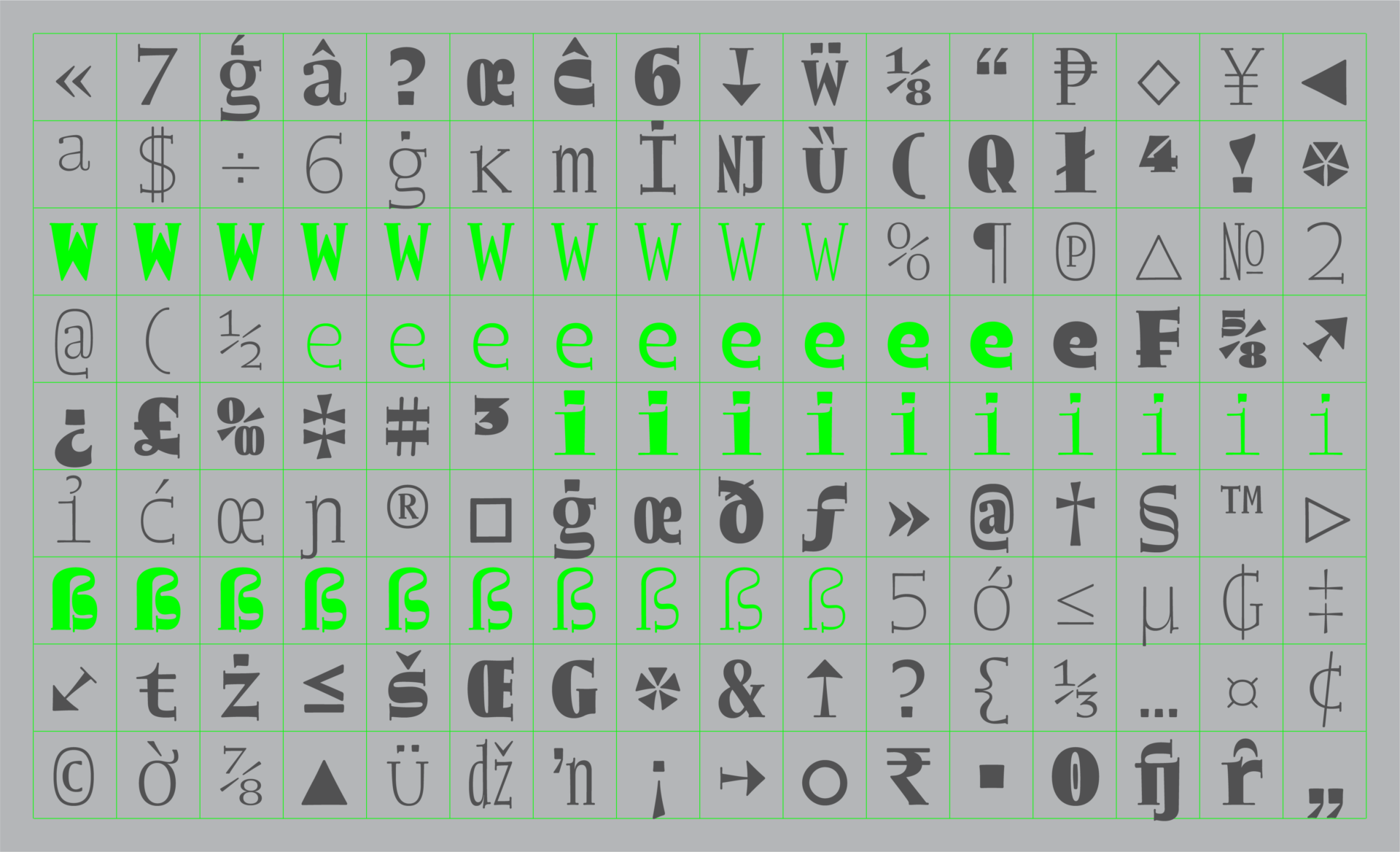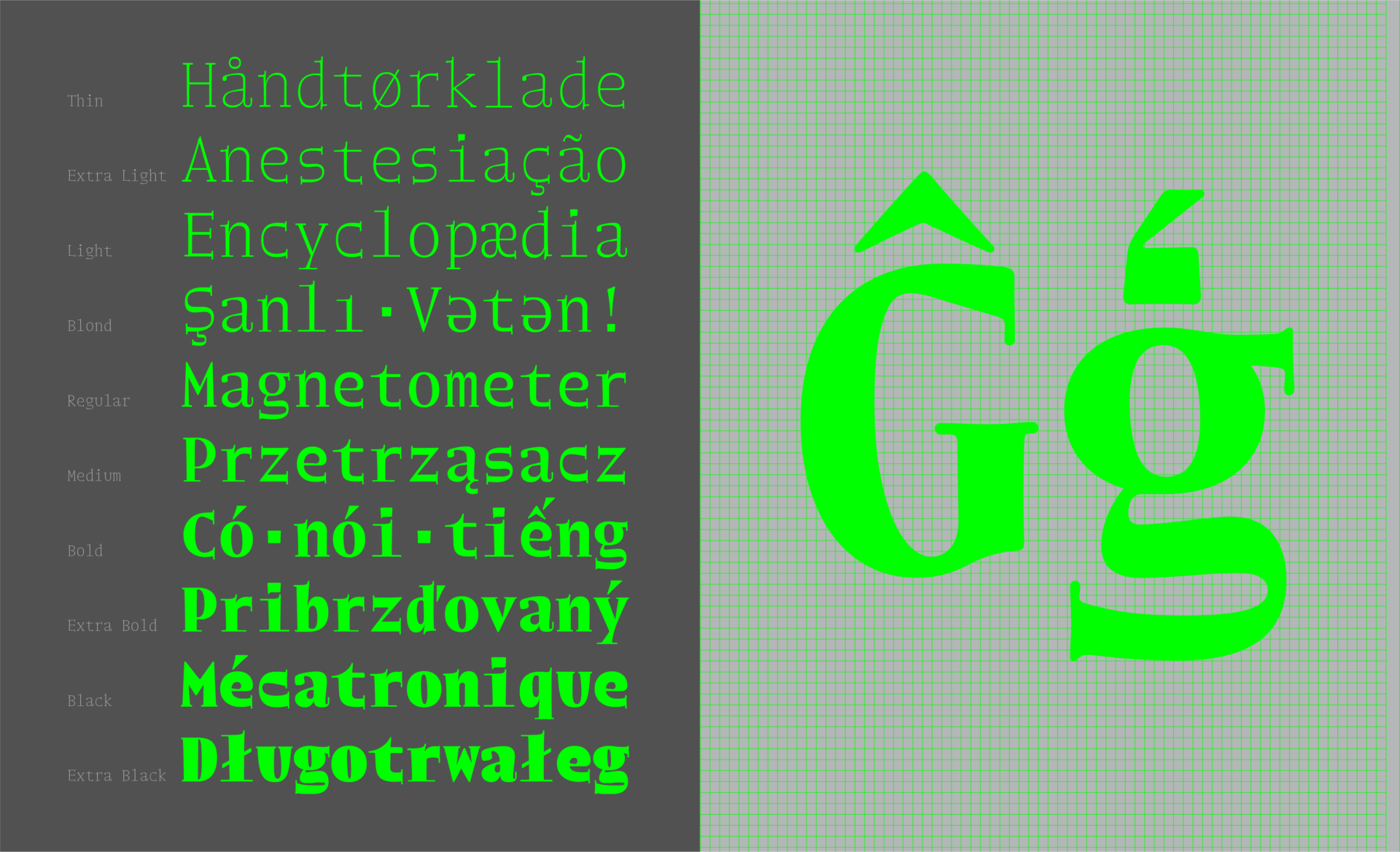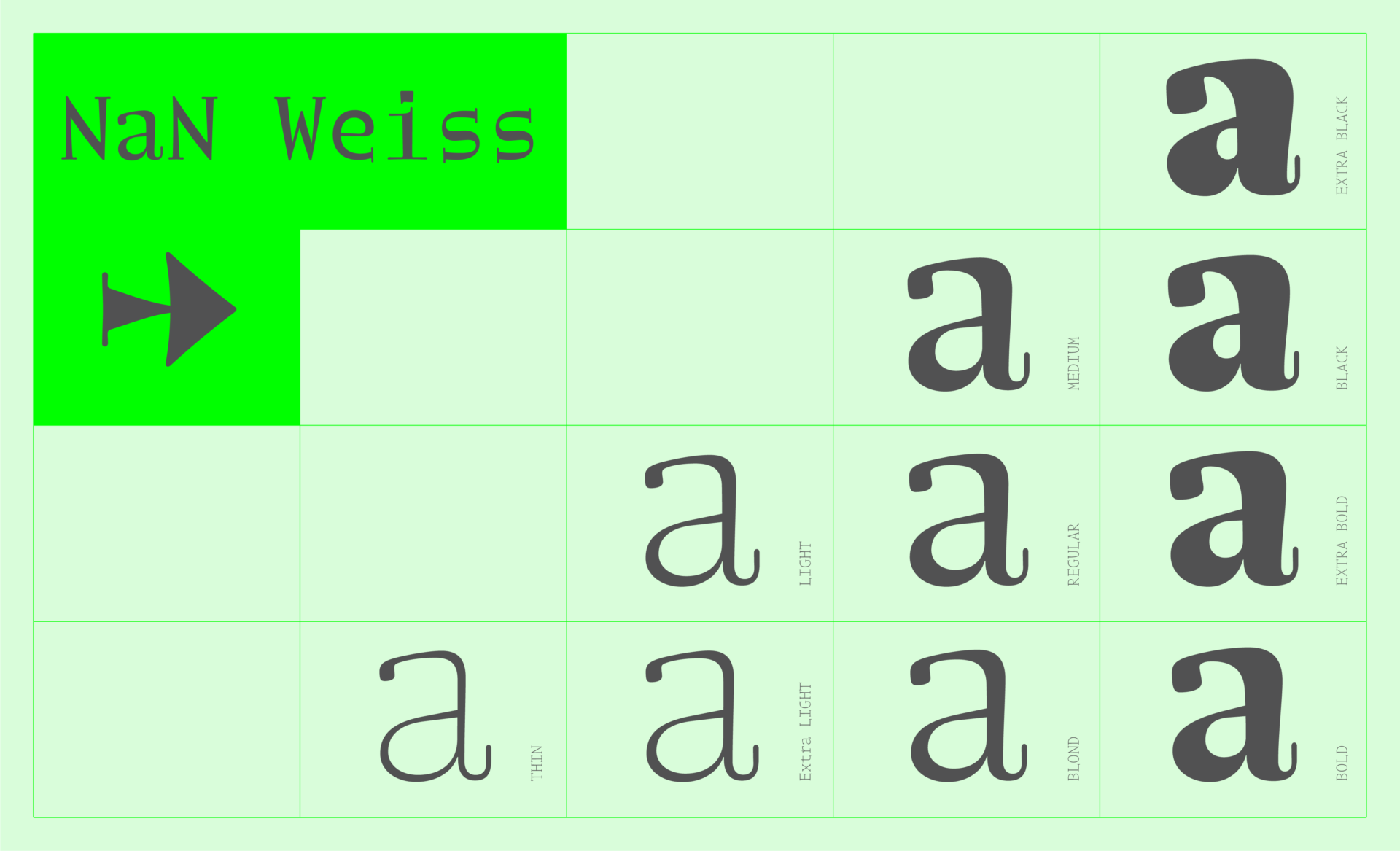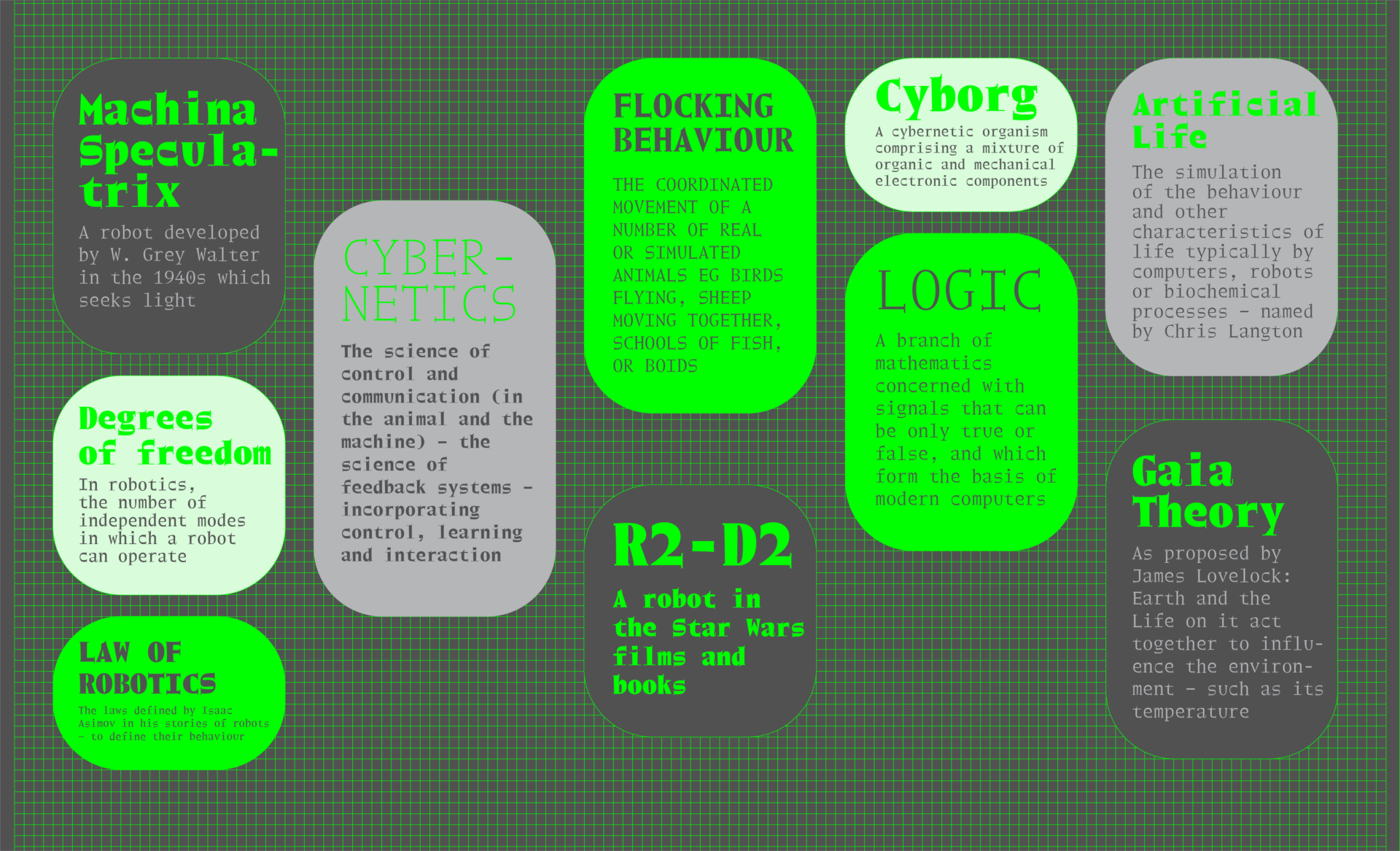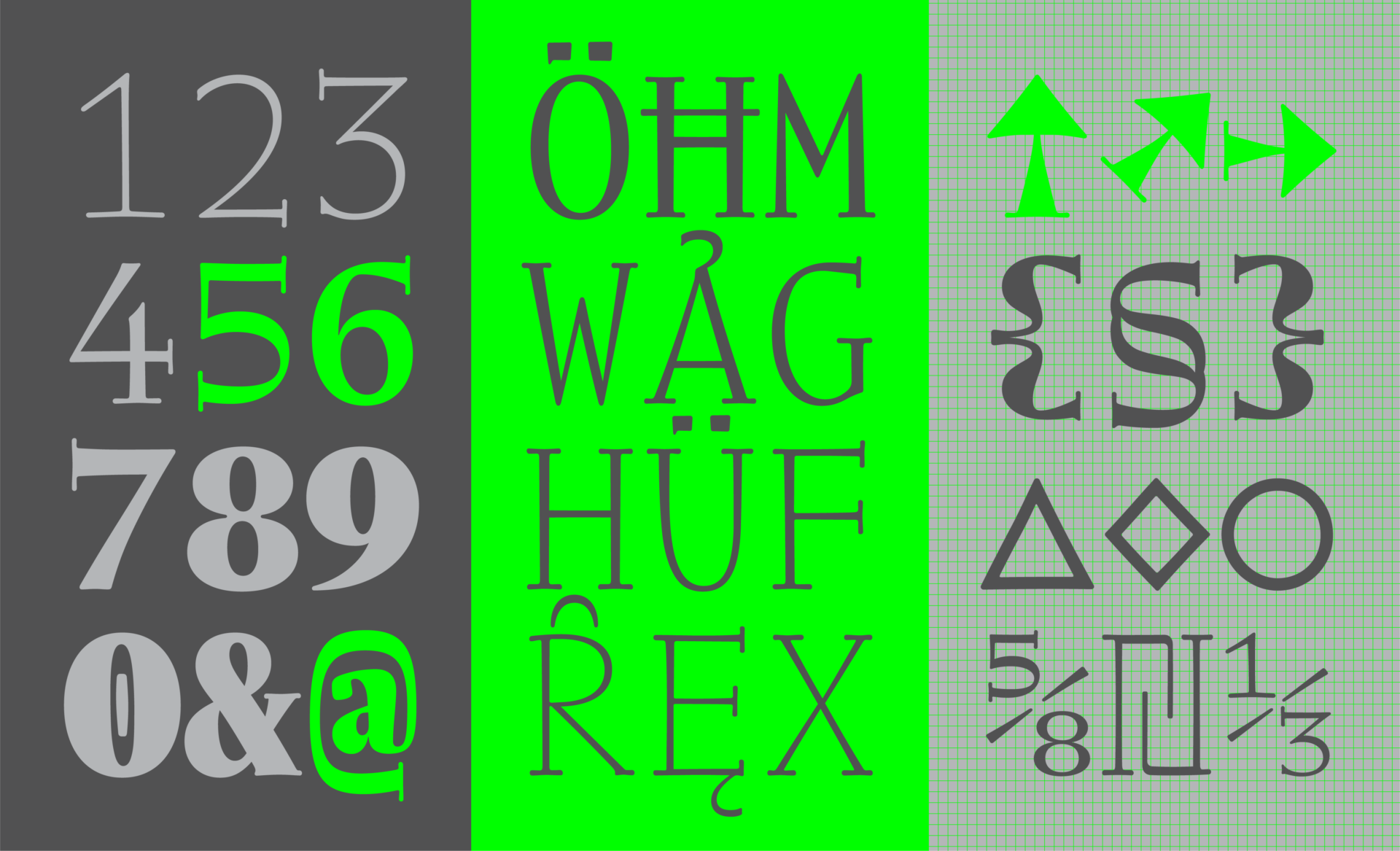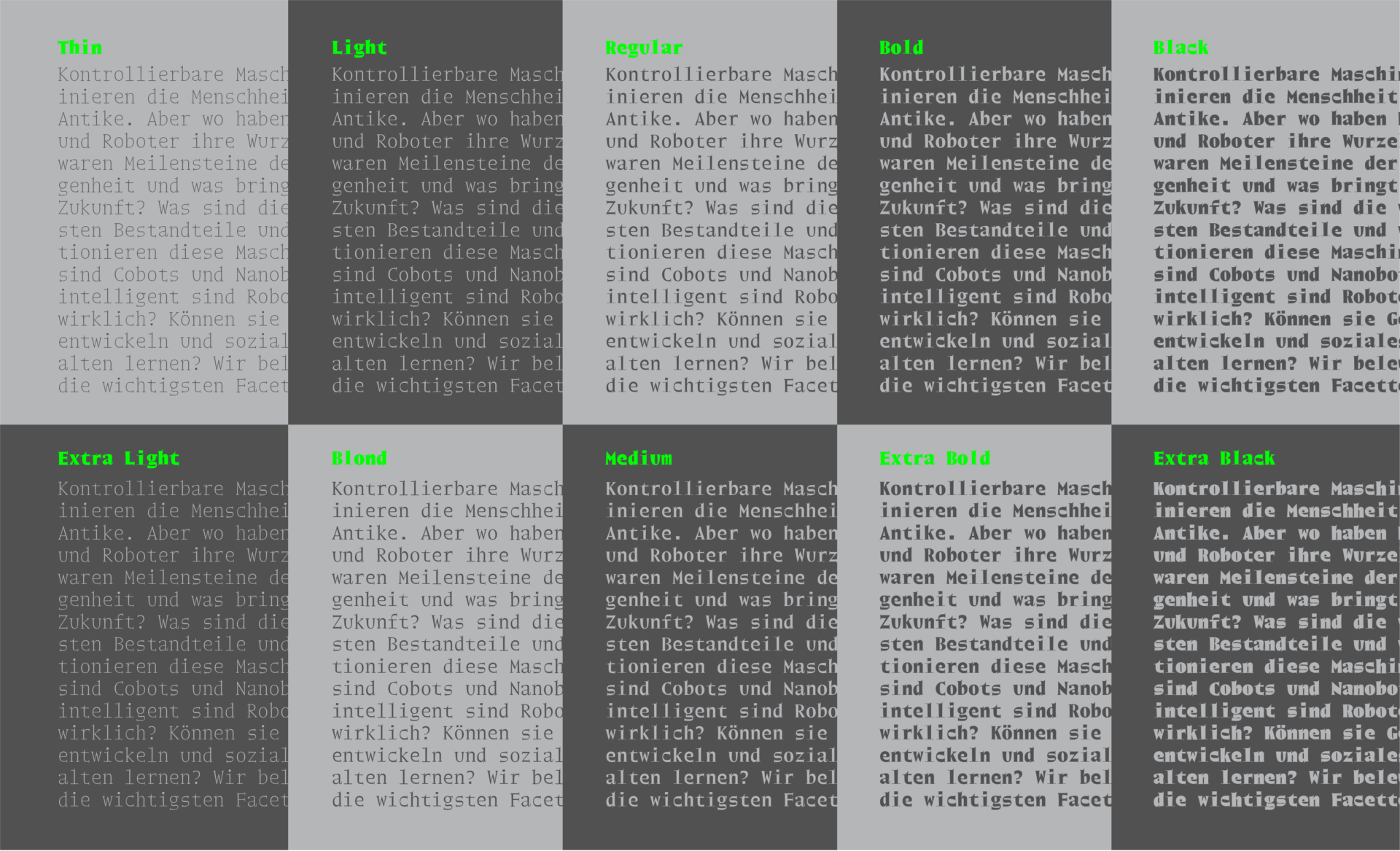
About NaN Weiss
NaN Weiss is a reimagining and extension of Emil Rudolf Weiß’ Weiss-Kapitale Kräftig through the constraints of a fixed-width frame. In blending the scriptural associations of Weiß’ lettering-turned-font with the cold metronomy of a monospace, we arrive at a clash of times and worlds: the humanist and the algorithmic, the religious and the technocratic. The result is jarring but warm – as if we have stumbled across an alien almost successfully pretending to be human.
The family comes in a collection of ten distinct weights, ranging from a skeletal Thin to a bulky extra Black.
Typeface: NaN Weiss
Designer: Luke Prowse
Year: 2019-2020
Selected Opentype Features
1/2+3/4=Bcp Fractions
Affiche Discretionary Ligatures